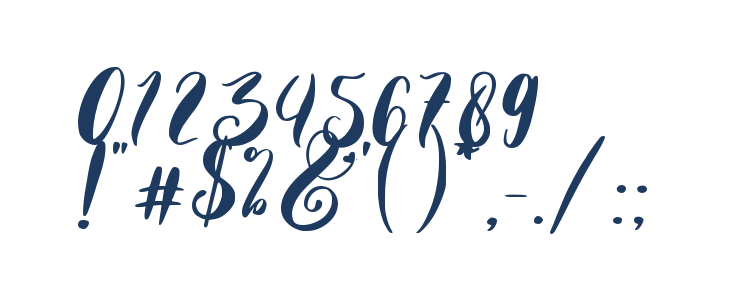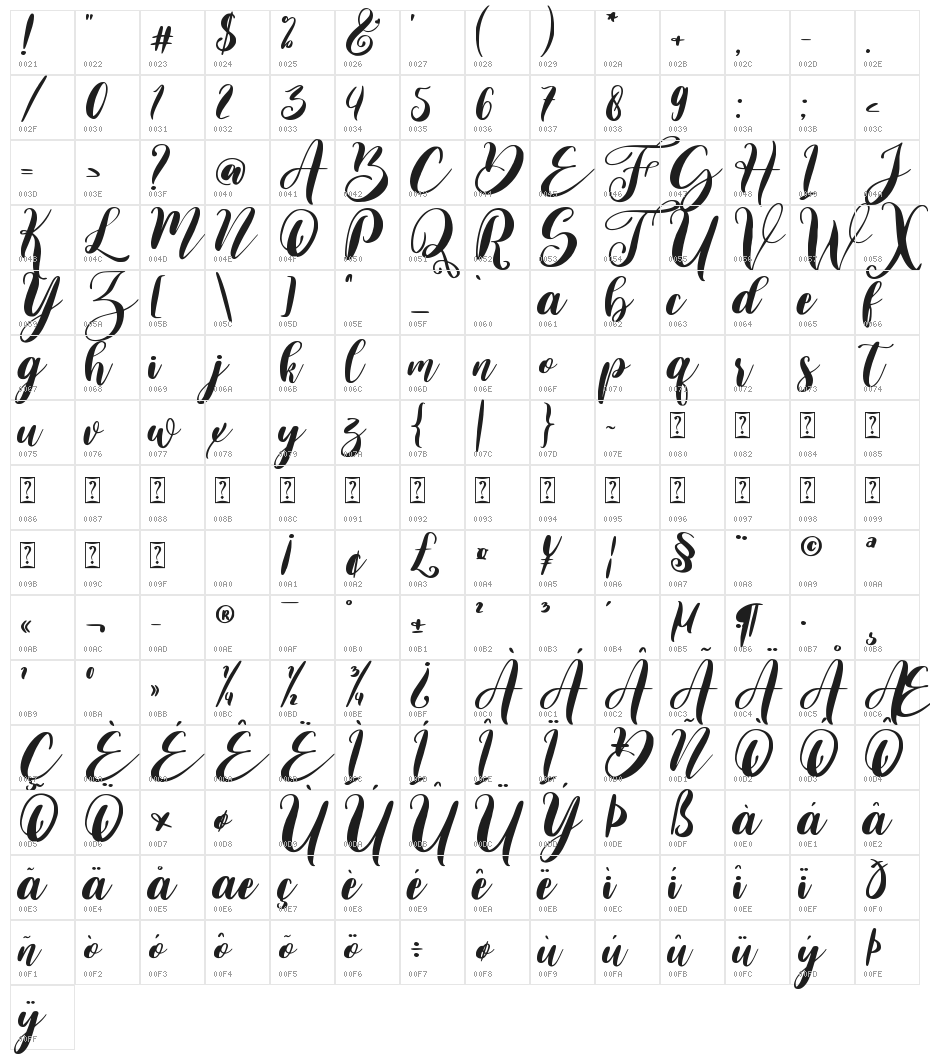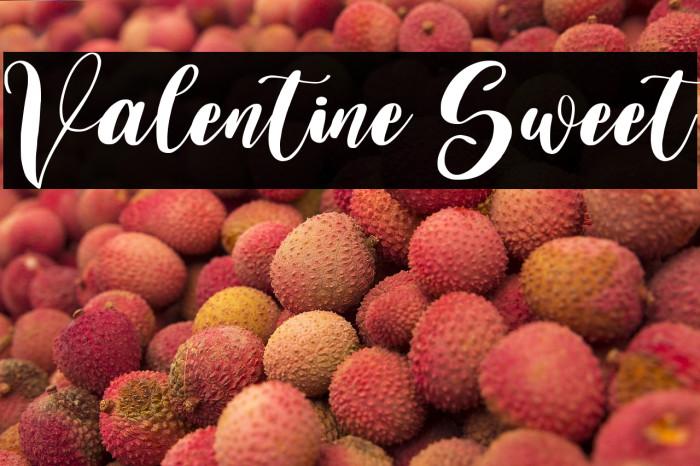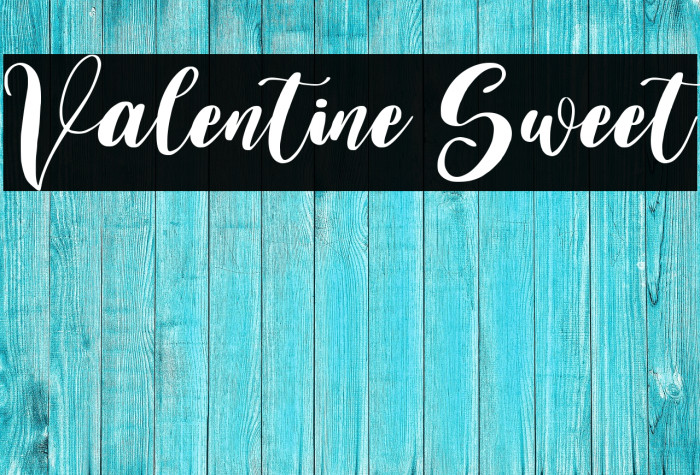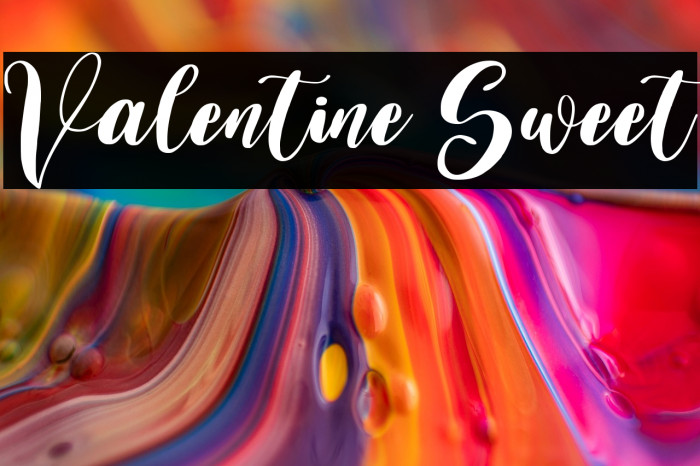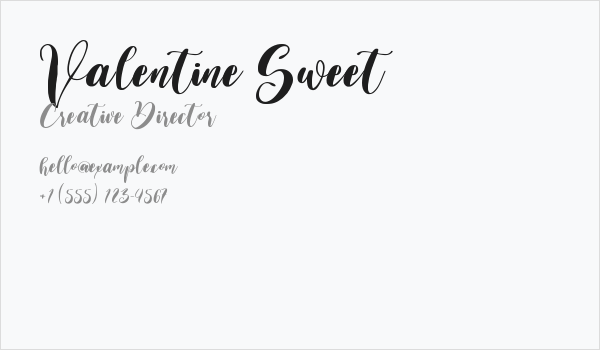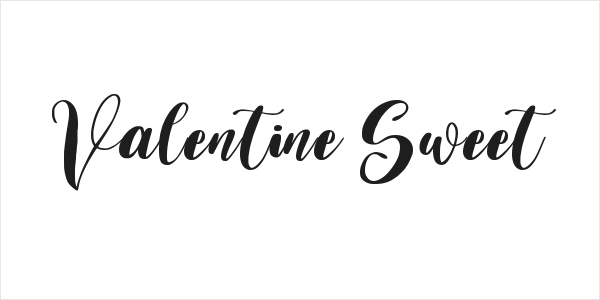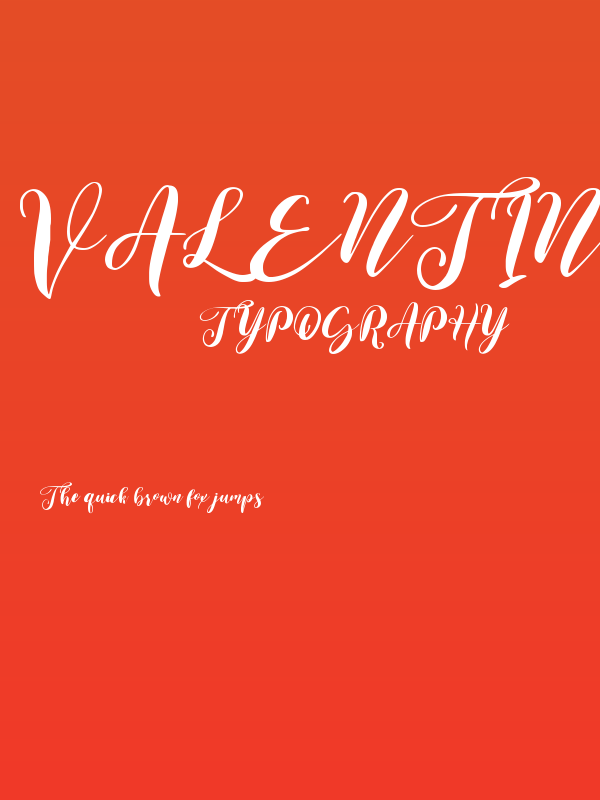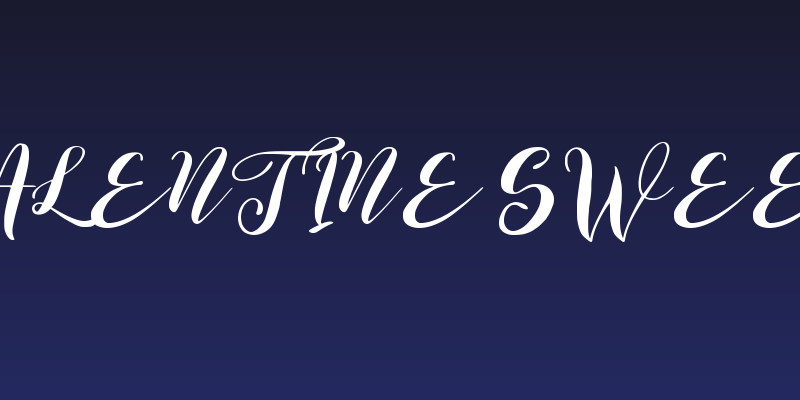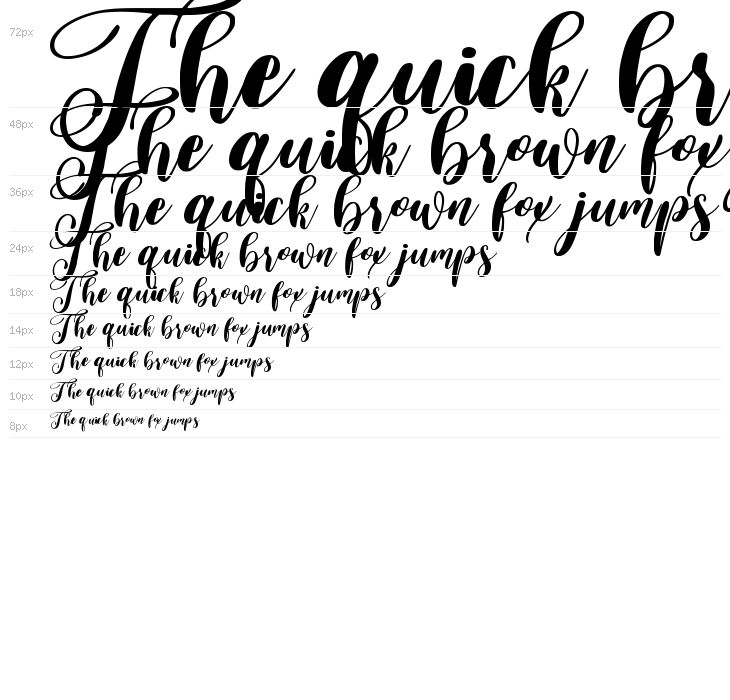
This font features an elegant and flowing script style, characterized by its smooth, cursive strokes and graceful curves. The uppercase letters exhibit a sophisticated flair with decorative swashes, while the lowercase letters maintain a consistent fluidity that enhances readability. Numbers and special characters are designed with the same artistic touch, making them visually cohesive with the alphabet. The overall appearance is romantic and expressive, ideal for conveying a sense of elegance and charm.
| Proposed Projects | Ideal for wedding invitations, greeting cards, branding, and any project that requires a touch of elegance and romance. |